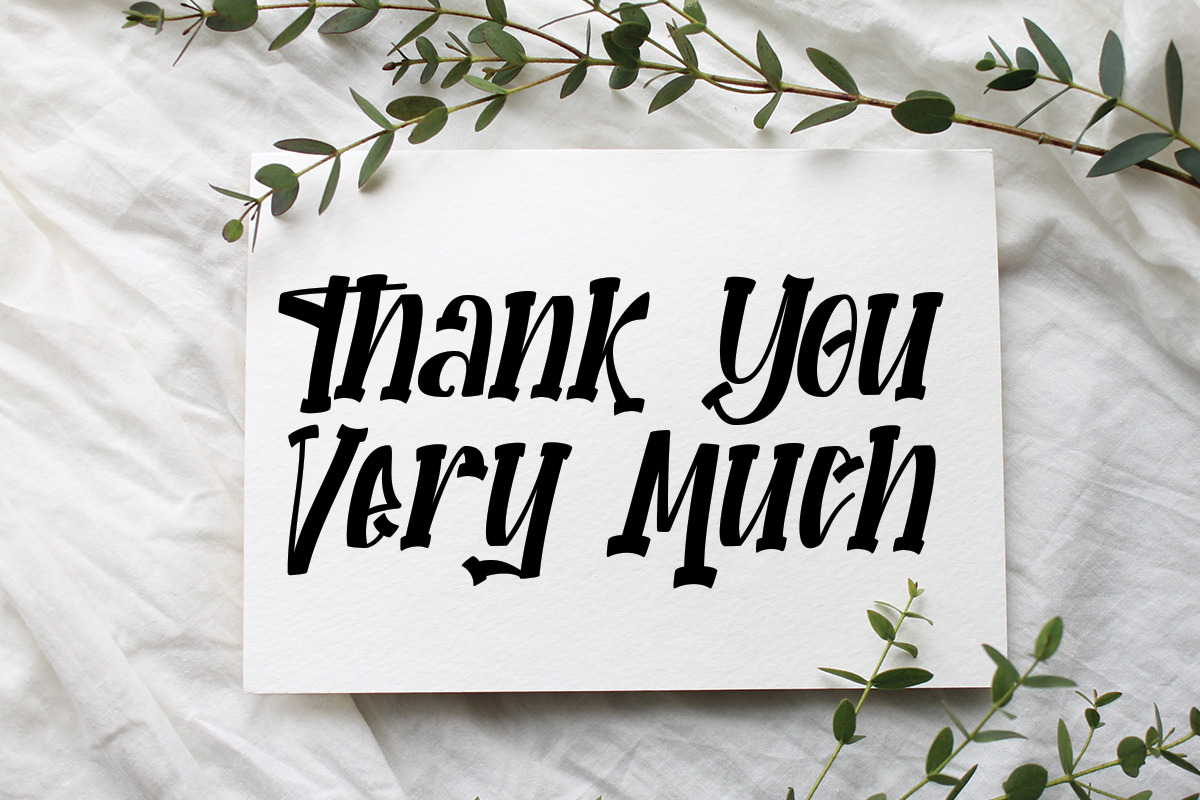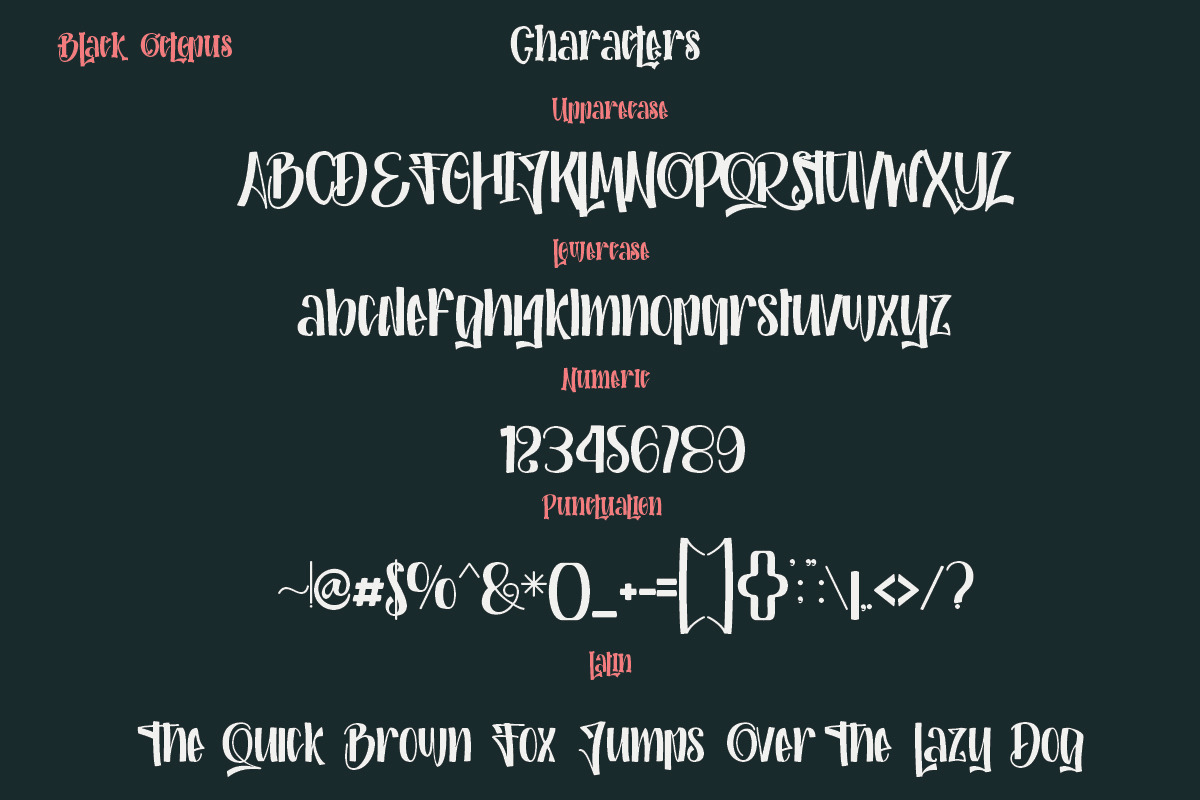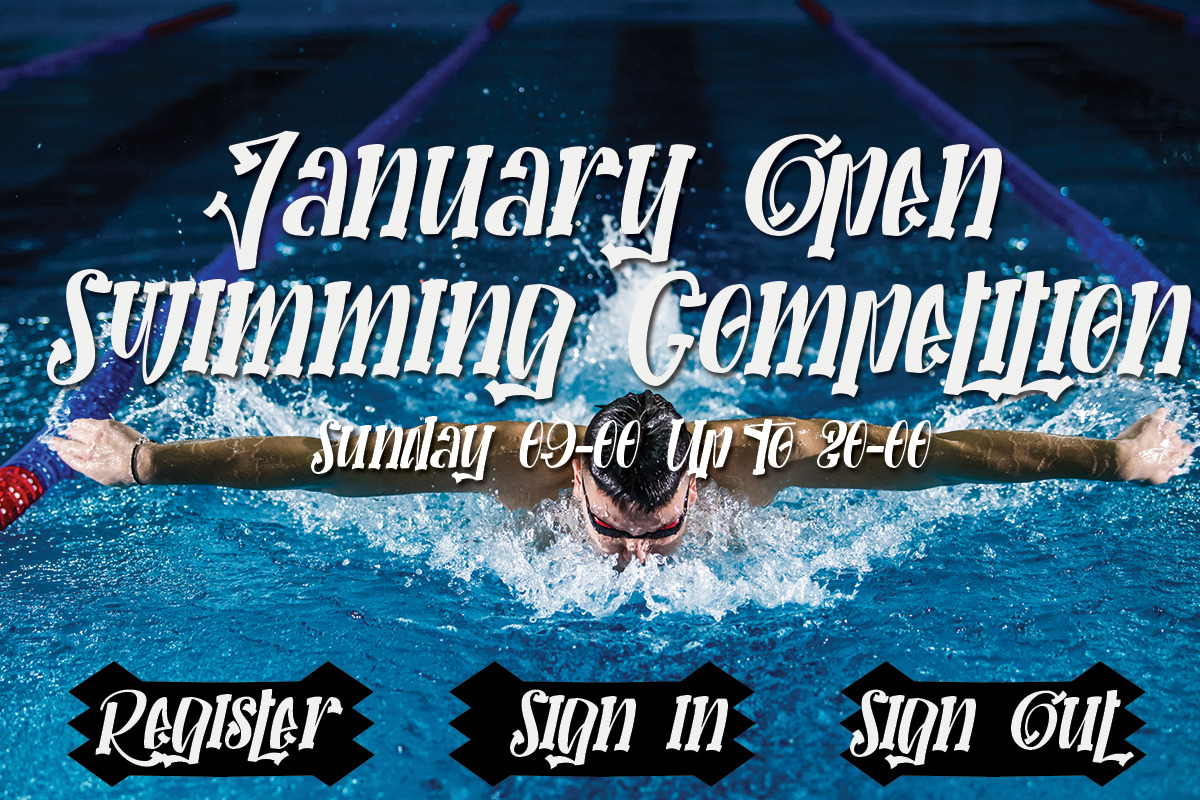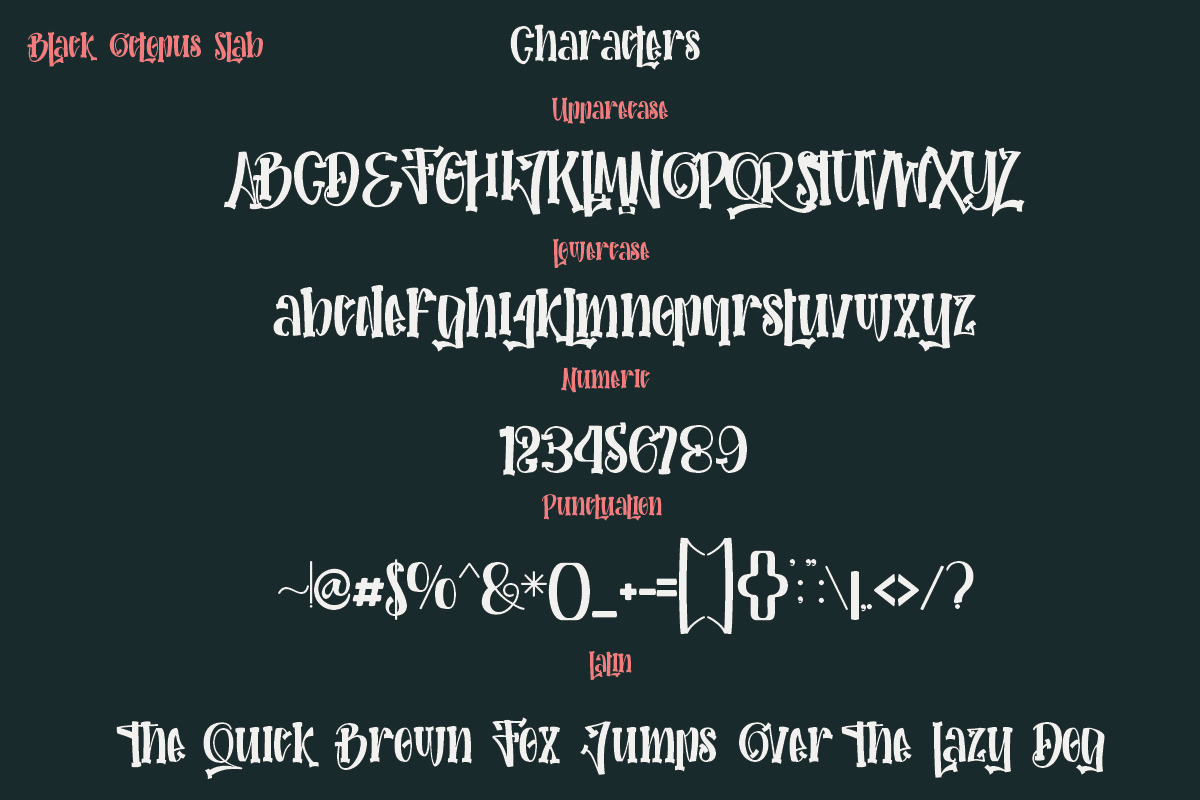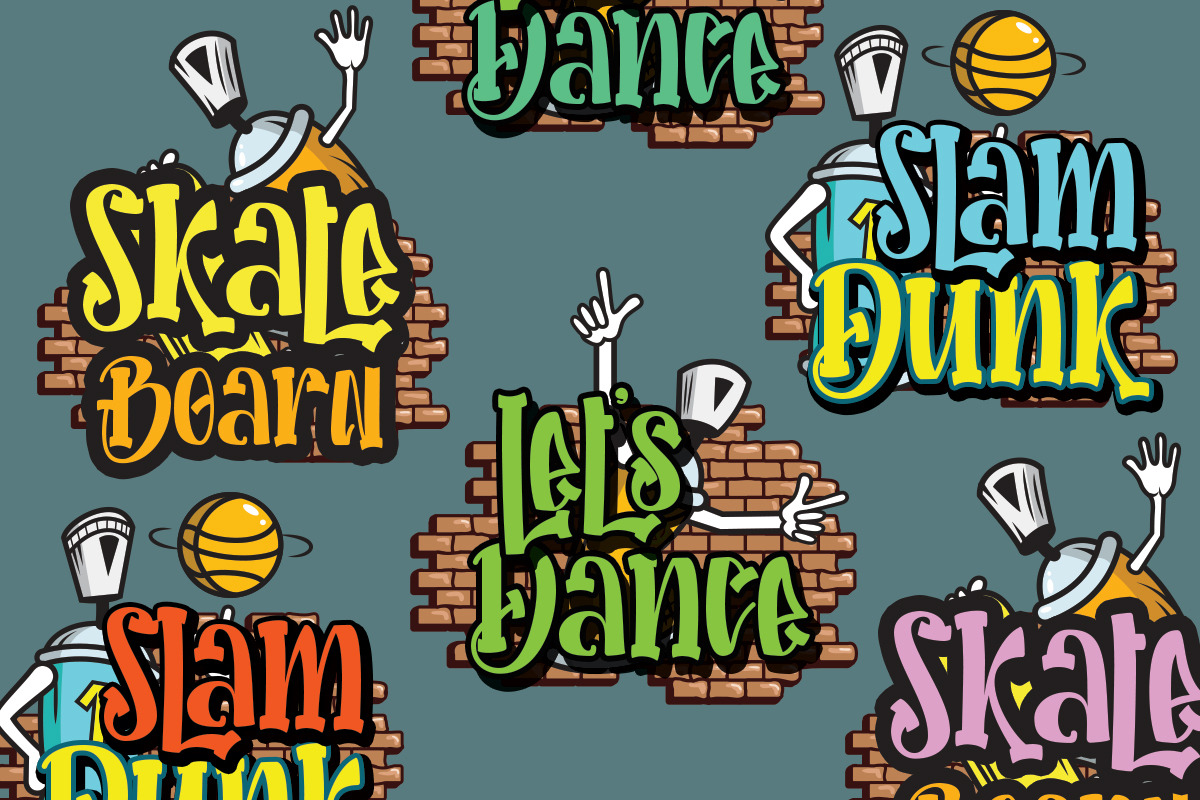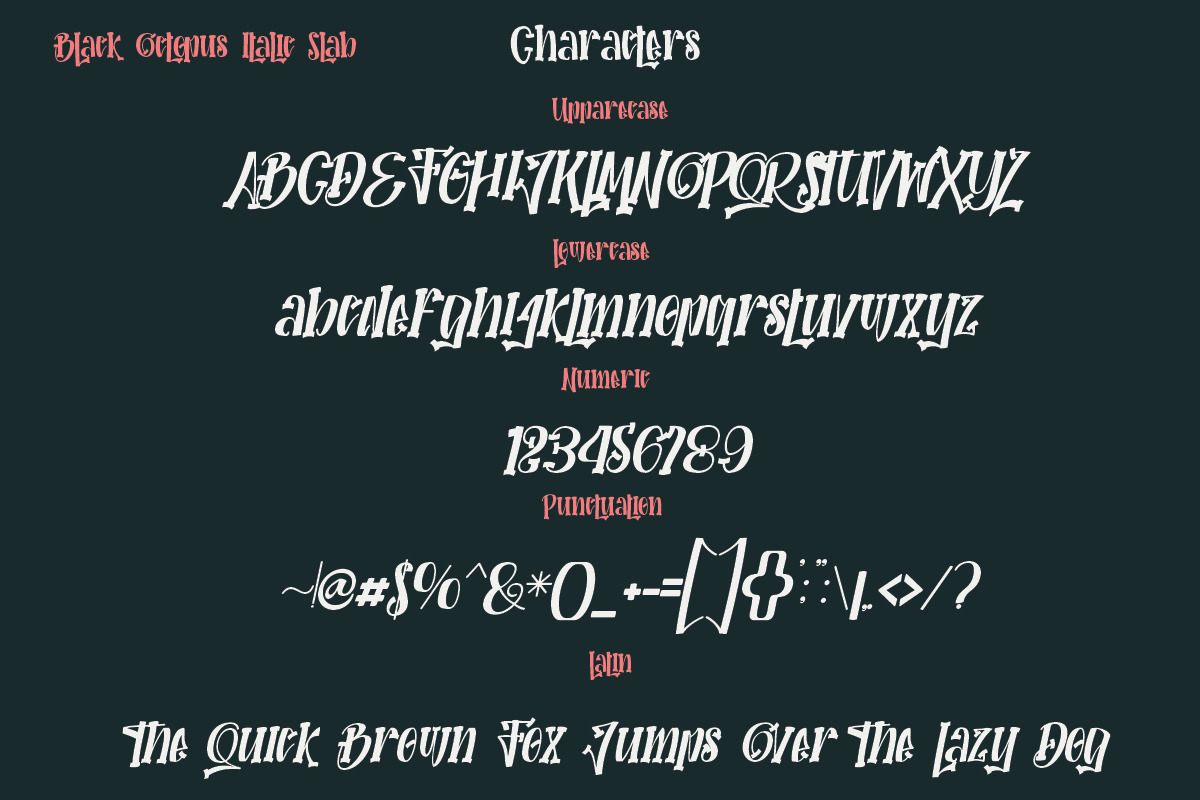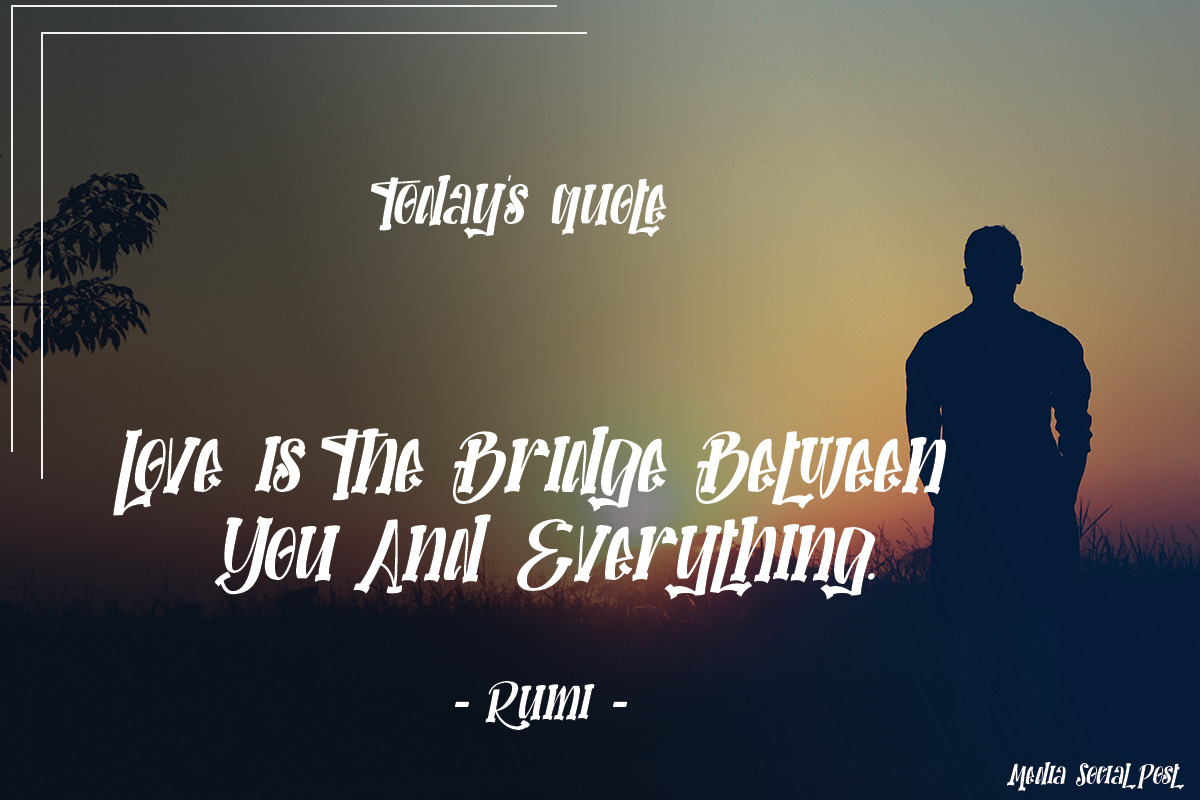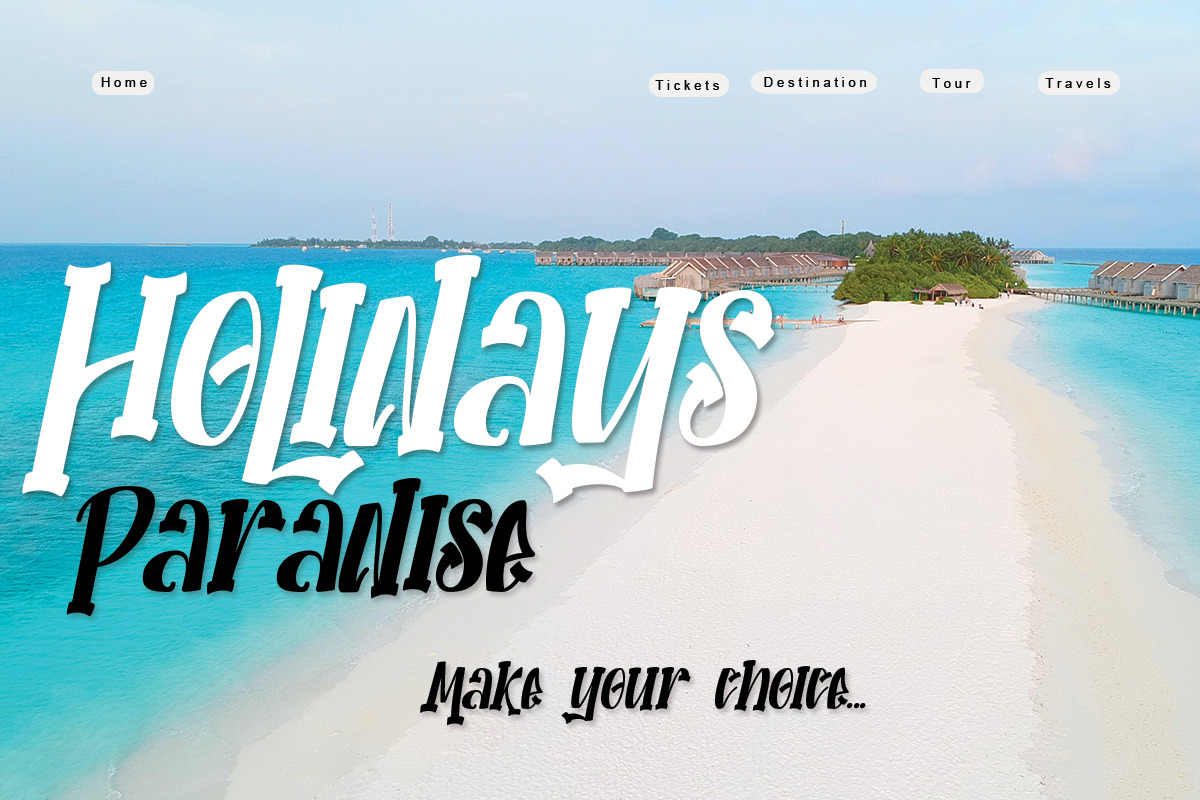
Black Octopus
Black Octopus This is a very charming and bold display font with a very modern style making this font very suitable to be your choice, there are several families that you can incorporate into your designs, make this your font of choice at the beginning of this month, perfect for everyone. types of designs, magazines, banners, books, social media posts, and much more